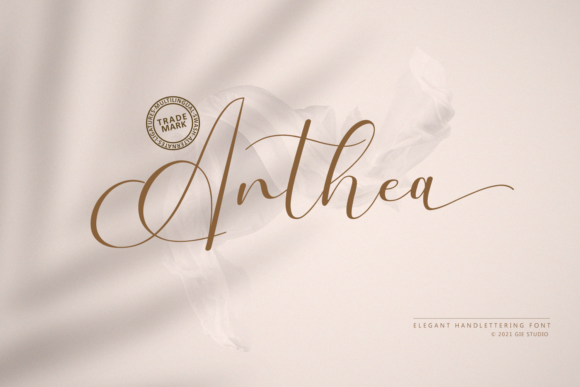
Introducing Anthea Font: A Lovely and Lightweight Handwritten Delight
Are you a designer or crafter looking for a font that can add a touch of elegance and whimsy to your projects? Look no further than Anthea Font, a beautiful and lightweight handwritten font that’s sure to bring your designs to life. In this article, we’ll take a closer look at what makes Anthea Font so special and why it’s a must-have for any creative looking to add a personal touch to their work.
The Beauty of Anthea Font
Anthea Font is a stunning handwritten font that’s been carefully crafted to bring a sense of uniqueness and charm to your designs. Every letter has a distinctive and beautiful touch, making it perfect for a wide range of creative projects, from invitations and greeting cards to branding and packaging. Whether you’re looking to create something modern and trendy or vintage and nostalgic, Anthea Font is the perfect choice.
Lightweight and Easy to Use
One of the best things about Anthea Font is its lightweight design. This means that it won’t slow down your design process or make it difficult to work with. In fact, Anthea Font is incredibly easy to use, even for those who are new to font design. With its simple and intuitive design, you can quickly and easily access all of the glyphs and swashes you need to create stunning designs.
Anthea Font is PUA (Private Use Area) encoded, which means that you can access all of the glyphs and swashes with ease. This is especially useful for designers who want to create custom designs without having to spend hours searching for the right characters. With Anthea Font, you can simply access the glyphs and swashes you need and get on with your design work.
Anthea Font is perfect for designers and crafters who want to add a personal touch to their work. Whether you’re creating invitations, greeting cards, or social media graphics, Anthea Font is the perfect choice. Its unique and beautiful design makes it ideal for a wide range of creative projects, and its lightweight and easy-to-use design makes it perfect for designers of all skill levels.
What You Can Create with Anthea Font
Key Features of Anthea Font
- Lovely and lightweight handwritten font
- Unique and beautiful touch on every letter